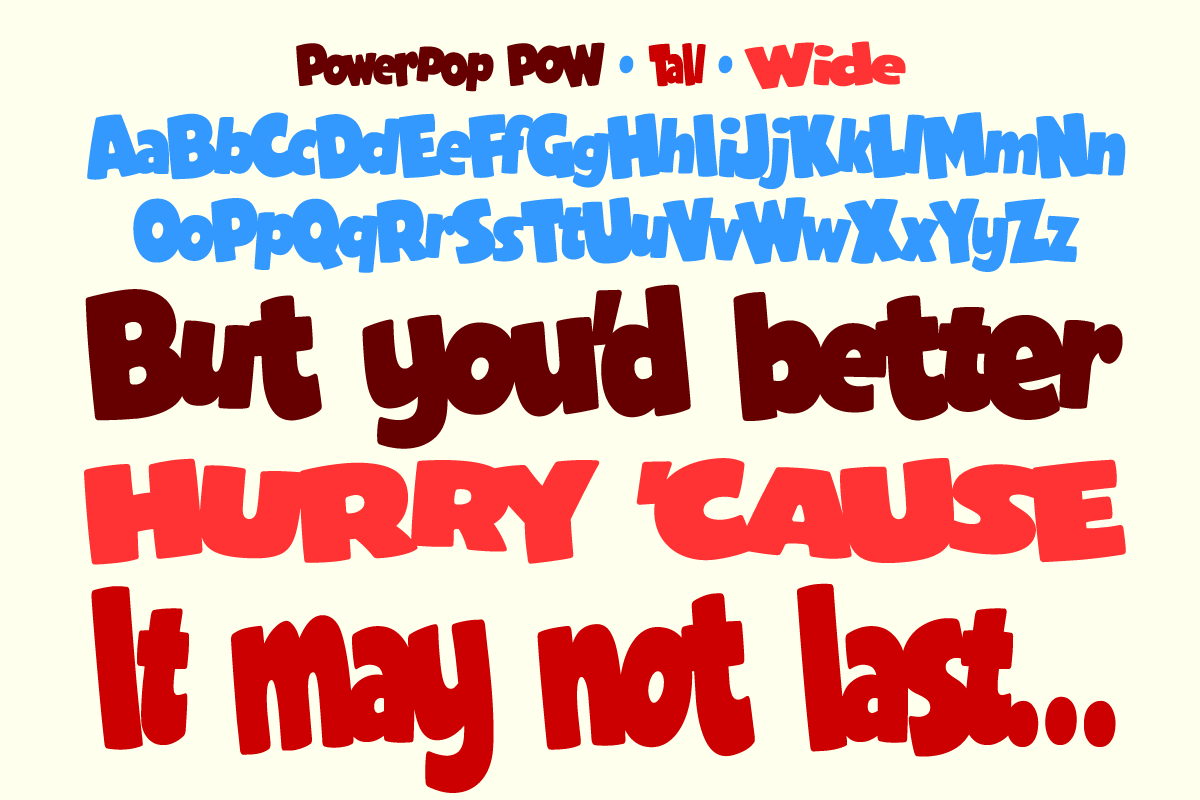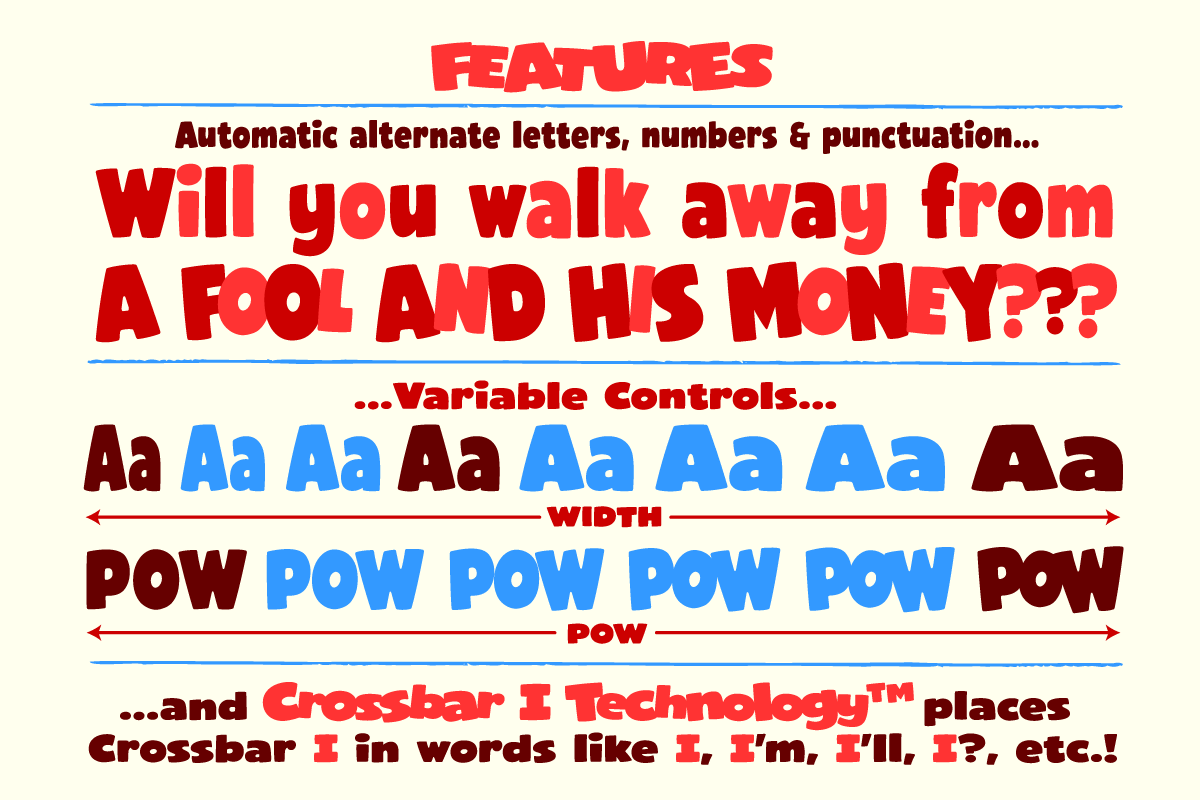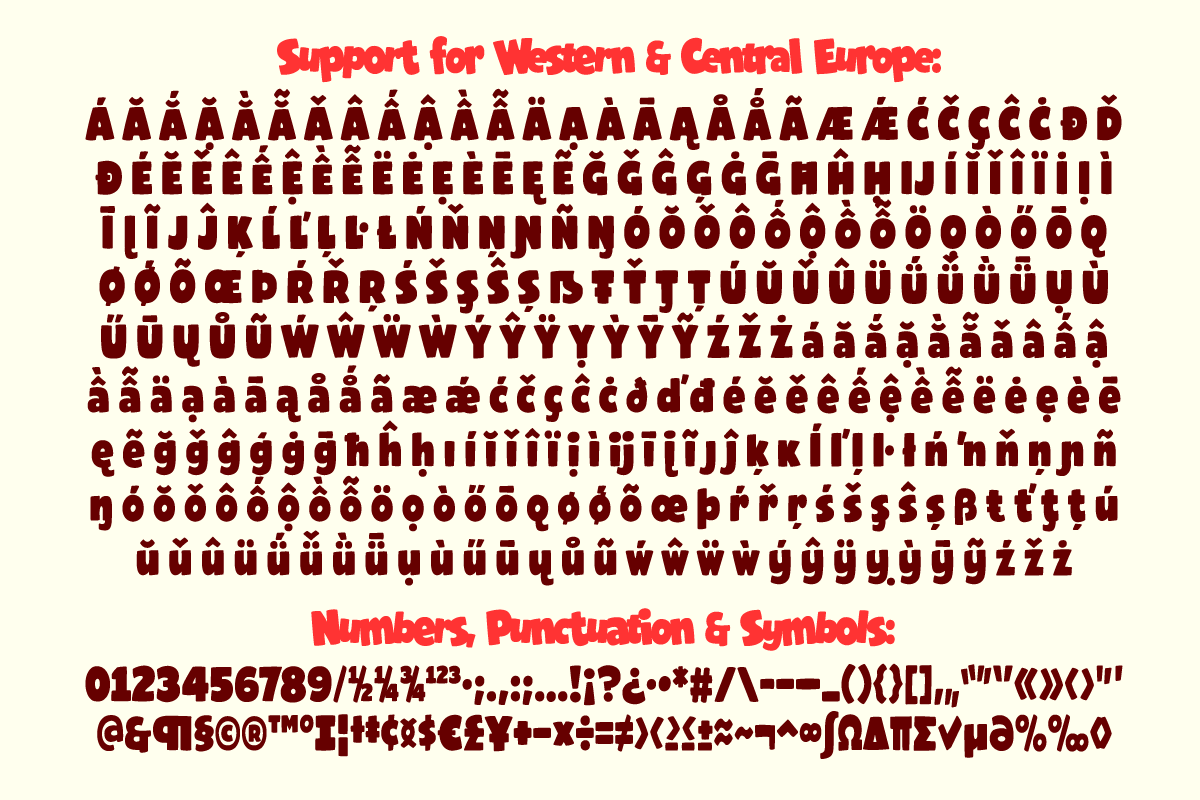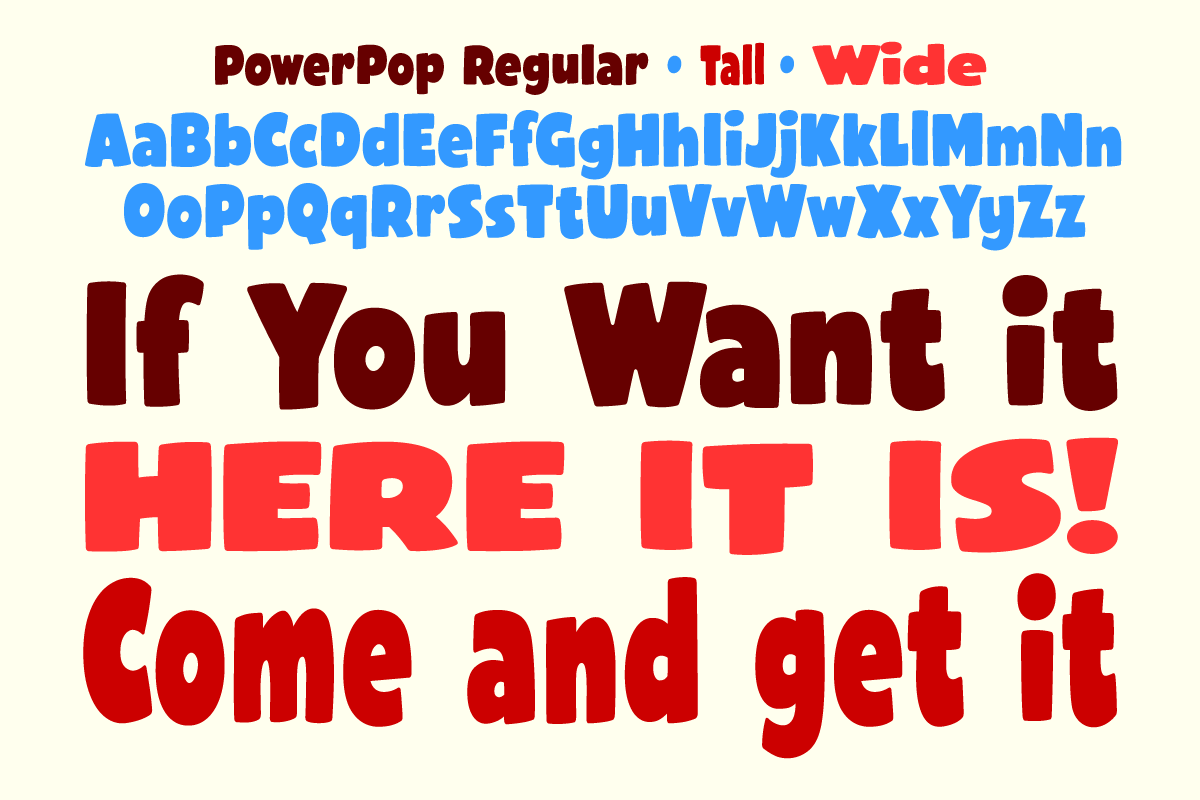
Power Pop - bouncy comic FX
We’ve got some strong words for fighting crime: Bubbles! Blossom! Buttercup! POWERPOP is the toughest SFX character set for saving the world! But be warned — this font can form Onomatopoeia at high speeds and extreme temperatures! For YOUR protection, dedicated Comicraftsman John Roshell added soft, round corners — it’s like adding a little soda to your punch.
POWERPOP features automatic alternates for letters, numbers & punctuation AND variable control of Width & POW! Your favorite animation apps will burst with dynamic moving sound effects!